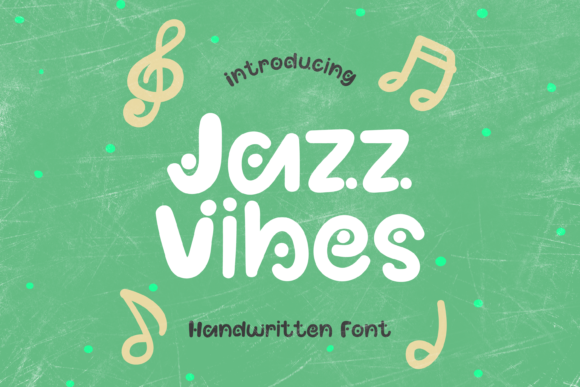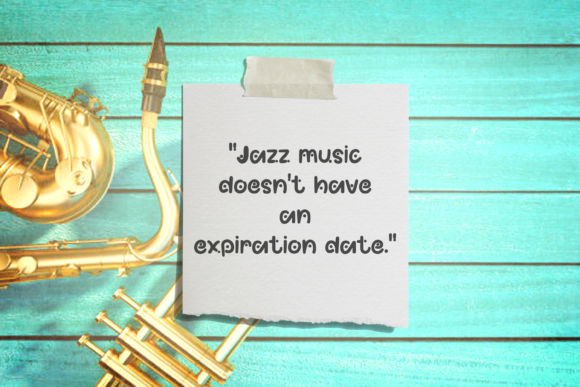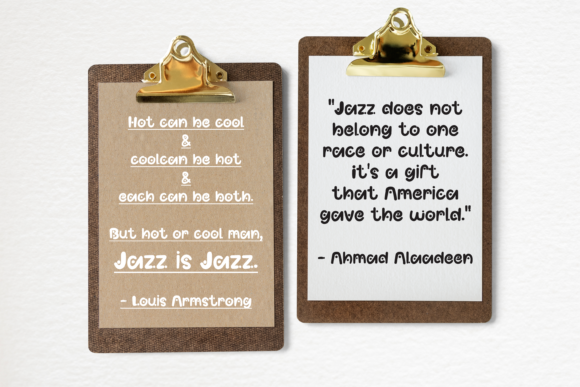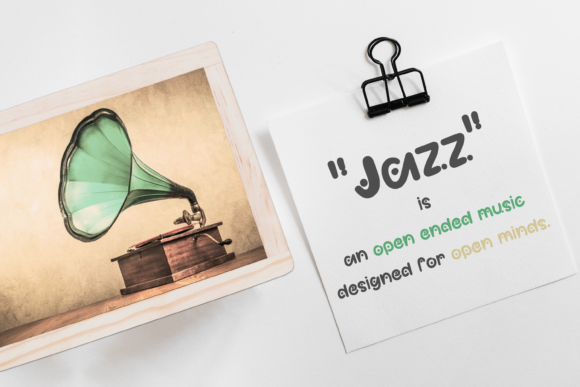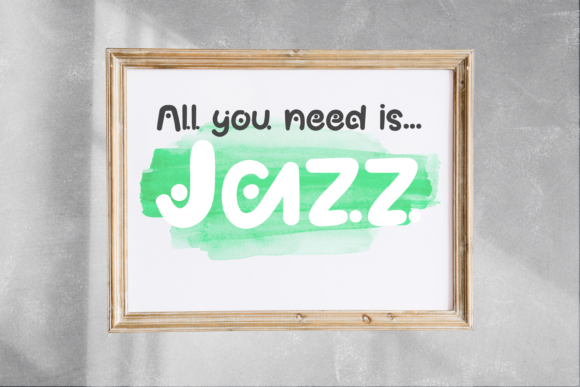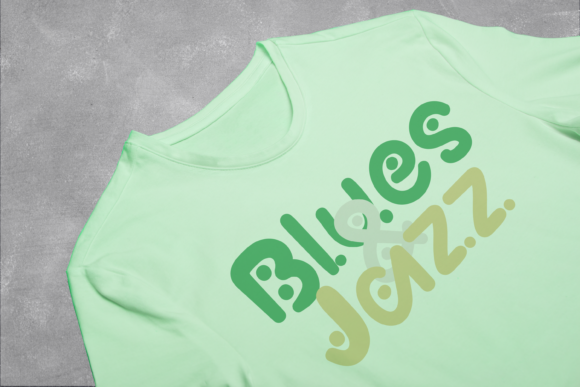
Jazz Vibes Font
About Jazz Vibes Font
Jazz Vibes is a cute & fun dotted handwritten font. Get inspired by its incredibly messy feel. Use this font to turn any design project into a standout!